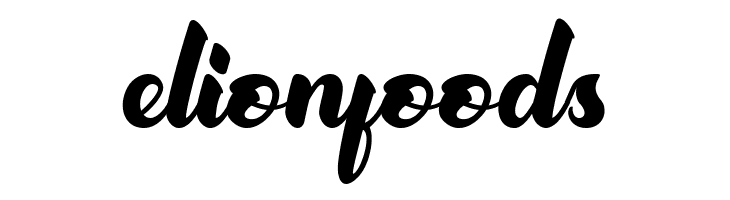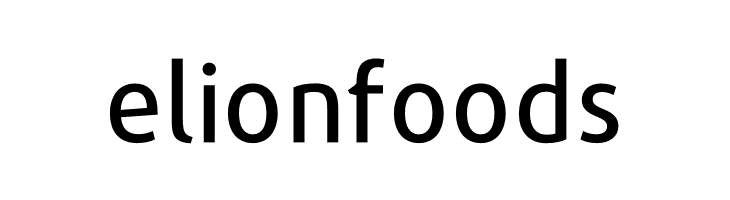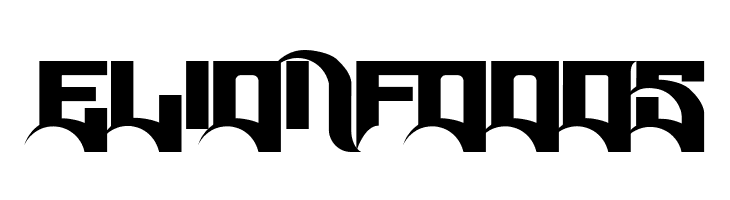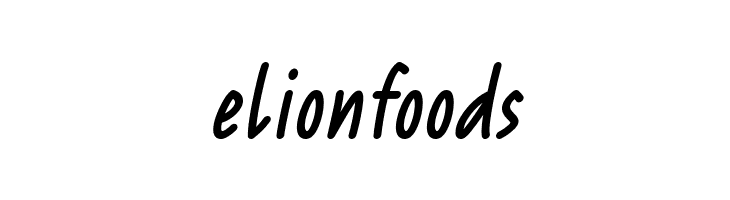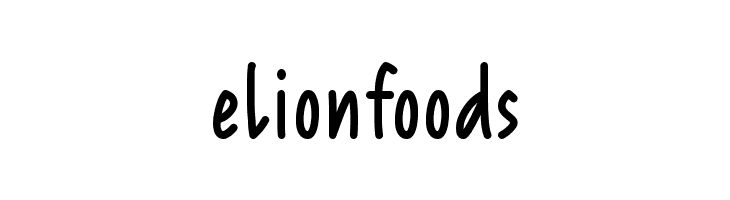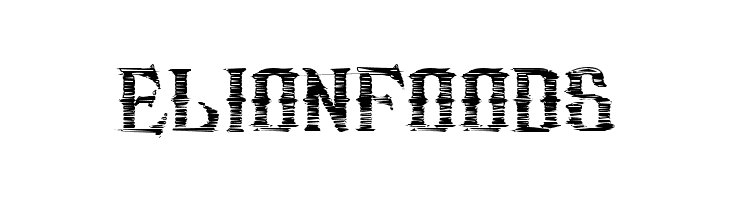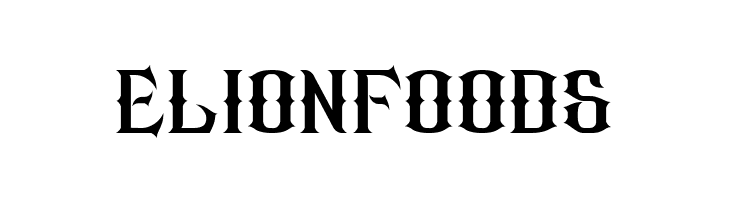
A modern, clean sans-serif font with balanced proportions and excellent readability.
A bold, high-contrast font with sharp angles and curved elements for dramatic visual impact.
A playful handwritten font with rounded, energetic letterforms.
A dynamic, italicized script font with a fluid, handwritten style.
A bold, rounded font with a modern and playful style.
A lively, handwritten font with a playful and casual style.
A bold, Blackletter-style font with sharp, angular lines and dramatic flourishes.
A dynamic and elegant script font with bold, flowing letterforms.
A bold, dynamic font with horizontal strokes creating a sense of movement.